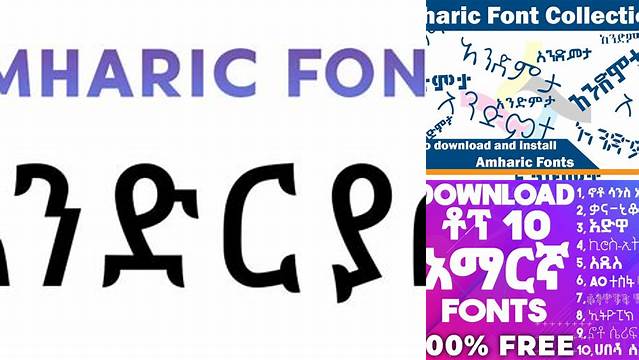
1. Understanding Amharic Script and Its Fonts
The Amharic script, also known as Fidel, is a beautiful and unique writing system used primarily in Ethiopia. Unlike Latin scripts, Amharic uses a syllabic system, where each character represents a consonant-vowel pair. This makes Amharic fonts quite distinct and fascinating. Choosing the right font is crucial because it affects readability, aesthetics, and the overall impact of your text. A well-designed font can make your Amharic text look professional and engaging, while a poorly designed one can be hard to read and detract from your message. Understanding the nuances of the Amharic script helps you appreciate the variety and complexity of available fonts. Different fonts convey different moods and tones, from formal and traditional to modern and playful. Think about the context in which you'll be using the font. Is it for a formal document, a creative design project, or something else entirely? Your choice should reflect the purpose and audience of your work. With so many new Amharic font style free download options out there, you’re sure to find something that fits your needs perfectly.
2. The Importance of Font Choice in Amharic Writing
Font choice is super important, especially in Amharic writing. A good font can make your text easy to read and look great, while a bad one can make it hard to understand and unappealing. When you're working with Amharic, the font can really change how people see your words. Think of it like this: the font is the voice of your text. If you're writing something serious, you'll want a font that looks formal and trustworthy. If it's something fun and creative, a more playful font might be the way to go. The right font can also help you emphasize certain points or create a particular mood. For example, a bold font can make a statement stand out, while a delicate font can add a touch of elegance. Plus, using a font that's designed specifically for Amharic ensures that all the characters look correct and are easy to read. You'll find plenty of options for new Amharic font style free download that cater to different needs and preferences.
3. Exploring Traditional Amharic Font Styles
Let's dive into the world of traditional Amharic font styles! These fonts often carry a sense of history and cultural significance, making them perfect for projects that require a touch of authenticity and heritage. Traditional Amharic fonts usually feature a classic, elegant look, reminiscent of ancient manuscripts and religious texts. They tend to have a formal and serious tone, which makes them suitable for academic papers, formal invitations, or any document that needs a touch of gravitas. Some popular traditional styles include Ge'ez fonts, which are the foundation of the Amharic script, and fonts that mimic the hand-written style of traditional scribes. When using traditional fonts, it’s important to consider readability. Some older styles may be more ornate and less clear than modern fonts, so you need to make sure they're still easy to read, especially in longer texts. However, for headings, titles, or shorter passages, a traditional font can add a unique and sophisticated flair. The charm of these fonts lies in their connection to the past, giving your work a timeless quality. You can explore a variety of new Amharic font style free download options that capture this classic essence.
4. Modern Amharic Fonts: A Contemporary Look
If you're aiming for a sleek and contemporary vibe, then modern Amharic fonts are definitely the way to go. These fonts often feature clean lines, simplified letterforms, and a more minimalist aesthetic. They're perfect for projects that need a fresh and updated look, like websites, social media graphics, and modern branding materials. Modern Amharic fonts are designed to be highly readable, even on screens, making them ideal for digital use. They often come in a variety of weights and styles, giving you plenty of flexibility to create different effects. For example, a light and airy font might be perfect for a delicate design, while a bold and strong font can make a powerful statement. Many designers are creating new and exciting modern Amharic fonts, so there's always something fresh to discover. When choosing a modern font, think about the overall tone and message of your project. Do you want something that feels professional and sophisticated, or something more playful and casual? There are tons of new Amharic font style free download options that can help you achieve the exact look you're after.
5. Calligraphic Amharic Fonts: Adding Elegance
For a touch of elegance and sophistication, you can't go wrong with calligraphic Amharic fonts. These fonts mimic the fluid strokes of hand-lettered calligraphy, adding a personal and artistic feel to your text. Calligraphic fonts are perfect for invitations, greeting cards, certificates, and any project where you want to make a strong visual impression. They often feature graceful curves, elaborate flourishes, and a sense of handcrafted artistry. Using a calligraphic font can instantly elevate the look of your design, making it feel more special and refined. However, it's important to use calligraphic fonts sparingly. Because they can be quite ornate, they're best used for headings, titles, or short passages of text. Overusing them can make your text hard to read. When choosing a calligraphic font, consider the specific mood you want to create. Some calligraphic fonts are formal and traditional, while others are more modern and playful. With a little experimentation, you can find the perfect calligraphic font to add a touch of elegance to your Amharic writing. There are numerous new Amharic font style free download options to explore in this category.
6. Display Amharic Fonts: Making a Statement
If you really want to make a statement, display Amharic fonts are your best friend! These fonts are designed to grab attention and make a bold impact. They often feature unique and eye-catching letterforms, making them perfect for headlines, posters, logos, and other projects where you need to stand out. Display fonts come in a huge variety of styles, from strong and blocky to whimsical and playful. They can be a great way to add personality and visual interest to your designs. However, because they're designed to be attention-grabbing, it's important to use them strategically. Display fonts are best used in small doses, for headings or short phrases. Overusing them can make your text look cluttered and overwhelming. When choosing a display font, think about the overall message and tone you want to convey. A bold, all-caps font might be perfect for a powerful headline, while a quirky, hand-drawn font could be great for a fun and casual design. There are plenty of new Amharic font style free download display fonts available to help you make a statement.
7. Practical Amharic Fonts for Body Text
When it comes to body text, you need a font that's easy on the eyes and highly readable. Practical Amharic fonts are designed specifically for this purpose. These fonts typically have clean, simple letterforms and a balanced design, making them comfortable to read in long passages of text. Practical fonts are essential for documents, articles, books, and websites where readability is paramount. They don't draw attention to themselves, but instead, they let the content shine. Some popular practical Amharic fonts include those that mimic the clarity of well-designed Latin fonts, ensuring a seamless reading experience. When choosing a practical font, look for one that has a consistent weight and spacing. This will help ensure that your text looks uniform and professional. It's also a good idea to test the font in different sizes to make sure it remains readable even at smaller sizes. While they might not be as flashy as display fonts, practical fonts are the unsung heroes of good typography. You can find a variety of new Amharic font style free download options that are perfect for body text.
8. Finding Free Amharic Font Resources Online
Alright, let's talk about where to find these awesome Amharic fonts for free! The internet is a treasure trove of resources, and there are plenty of websites that offer free fonts, including those for Amharic script. However, it's important to be a little cautious and make sure you're downloading fonts from reputable sources. Some websites may offer fonts that are poorly designed or even contain malware. A great place to start is with websites that specialize in free fonts. These sites often have a wide selection of Amharic fonts, and they usually screen the fonts to ensure they're high quality and safe to download. Another option is to check out websites that offer font design resources. These sites may have free Amharic fonts available, or they may offer links to other websites where you can find them. When downloading fonts, always read the license agreement. Some fonts may be free for personal use but require a commercial license for business projects. By being careful and doing your research, you can find some fantastic free Amharic fonts to enhance your projects. Look out for new Amharic font style free download options from trusted sources.